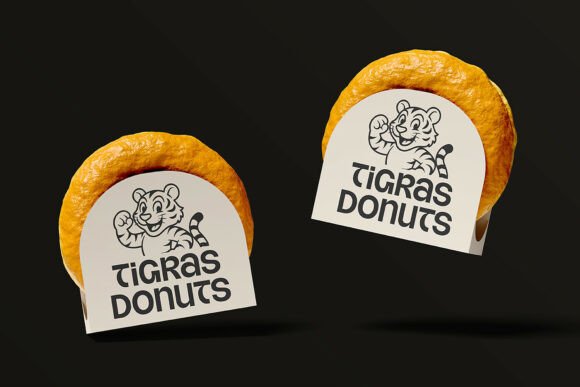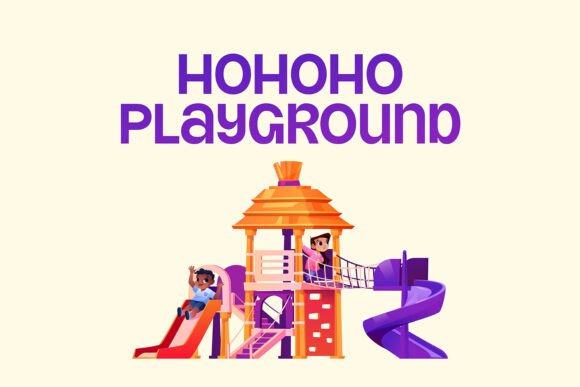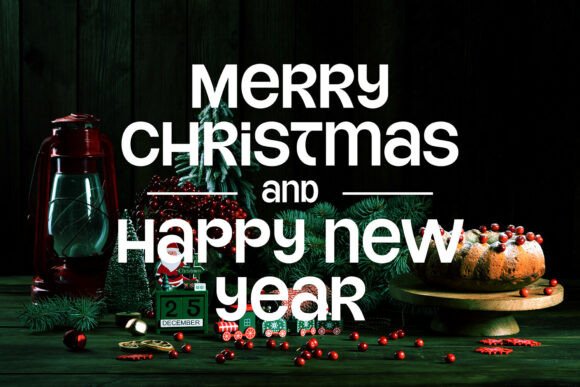
Introduction to Retrues Font Font
Do you remember the thrill of flipping through a vinyl record store, surrounded by the warm glow of neon lights and the hum of analog music? That’s the exact feeling you’ll transport your audience to with the Retrues Font Font, a striking retro display typeface that perfectly balances vintage charm with modern precision.
As designers, we’re always on the lookout for the perfect design resource to elevate our creative projects. And let’s be honest, there’s something special about working with a font that exudes a sense of nostalgia and coolness. The Retrues Font Font is more than just a font – it’s a statement piece that can instantly give your branding projects a high-impact, “new wave” aesthetic.
With its wide, geometric letterforms and unique rhythmic flow, the Retrues Font Font is a game-changer for designers looking to inject some 80s energy into their digital or print work. Plus, it’s available for free download, making it an accessible design resource for creatives of all levels.
Key Features of Retrues Font Font
- Unique characteristics: elegant, modern design with subtle nuances, making it perfect for branding, typography, and creative projects
Honest Review: Retrues Font Font
I recently stumbled upon the Retrues Font Font while searching for a unique design resource for a creative project. I was immediately drawn to its quirky and playful vibe, which I thought would add a fun touch to my design.
- What works well: The Retrues Font Font is incredibly versatile, suitable for both digital and print projects. Its high-quality design ensures that it will look great on any medium, from website headers to business cards.
However, I did encounter a few limitations ⚠️:
- Limited character set: The font only includes a limited set of characters, which may not be suitable for projects that require extensive text.
- Not suitable for complex typography: The font’s quirky design may not be the best choice for projects that require complex typography or intricate text arrangements.
Overall, I was impressed with the Retrues Font Font‘s unique design and versatility. While it may have some limitations, it’s an excellent choice for designers who want to add a touch of whimsy to their creative project. With a little creativity, I think this font has the potential to become a valuable design resource.
Tips for Getting the Most Out of Retrues Font Font
To get the most out of the Retrues Font Font, use it in combination with other high-quality design resources, such as graphics and textures. This will help you create a cohesive and professional design for your creative project. Additionally, experiment with different font sizes, colors, and styles to add visual interest to your design.
The Retrues Font Font is ideal for a wide range of creative projects, including social media graphics, presentations, documents, and custom graphics. It’s also a great resource for designers and artists who want to add a unique and creative touch to their work.